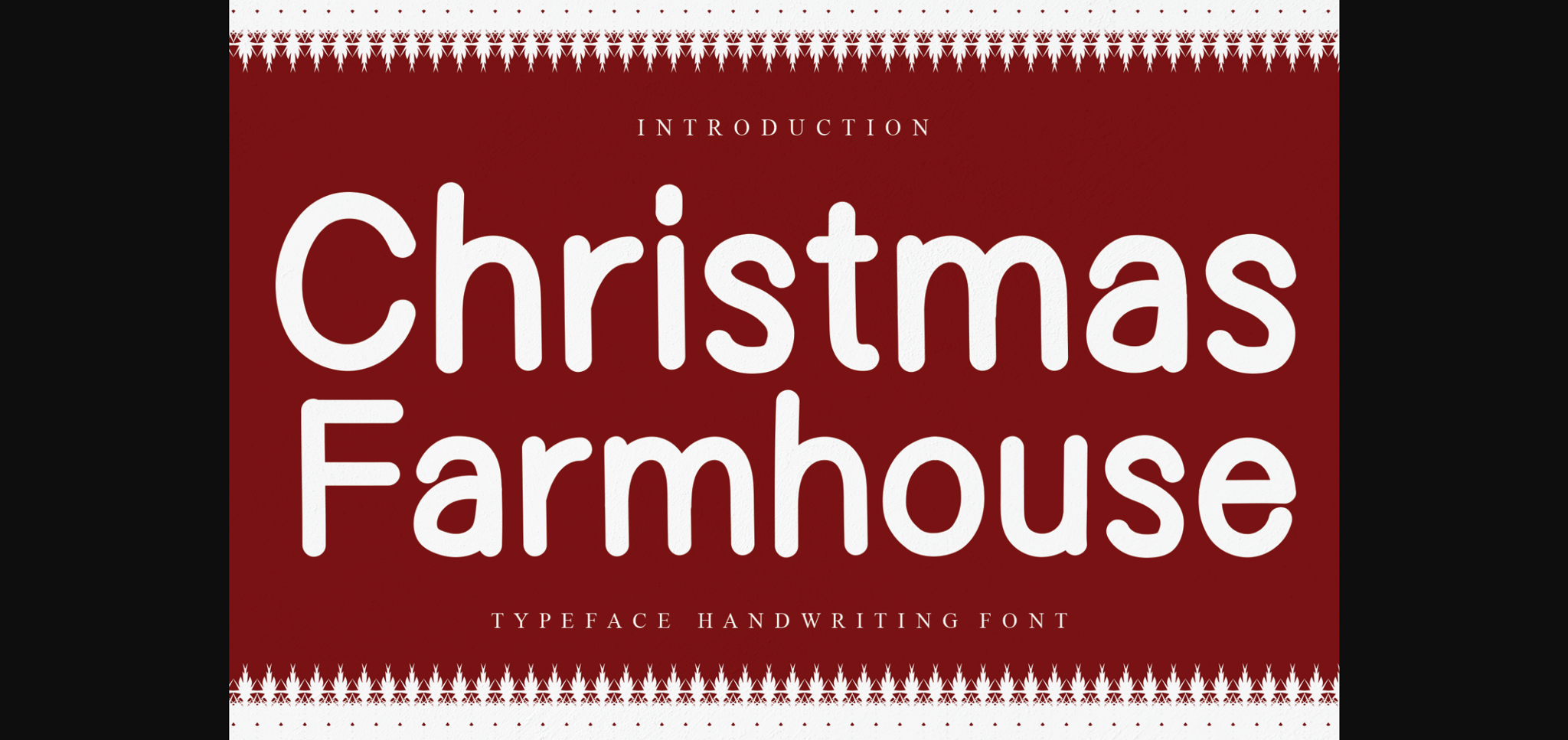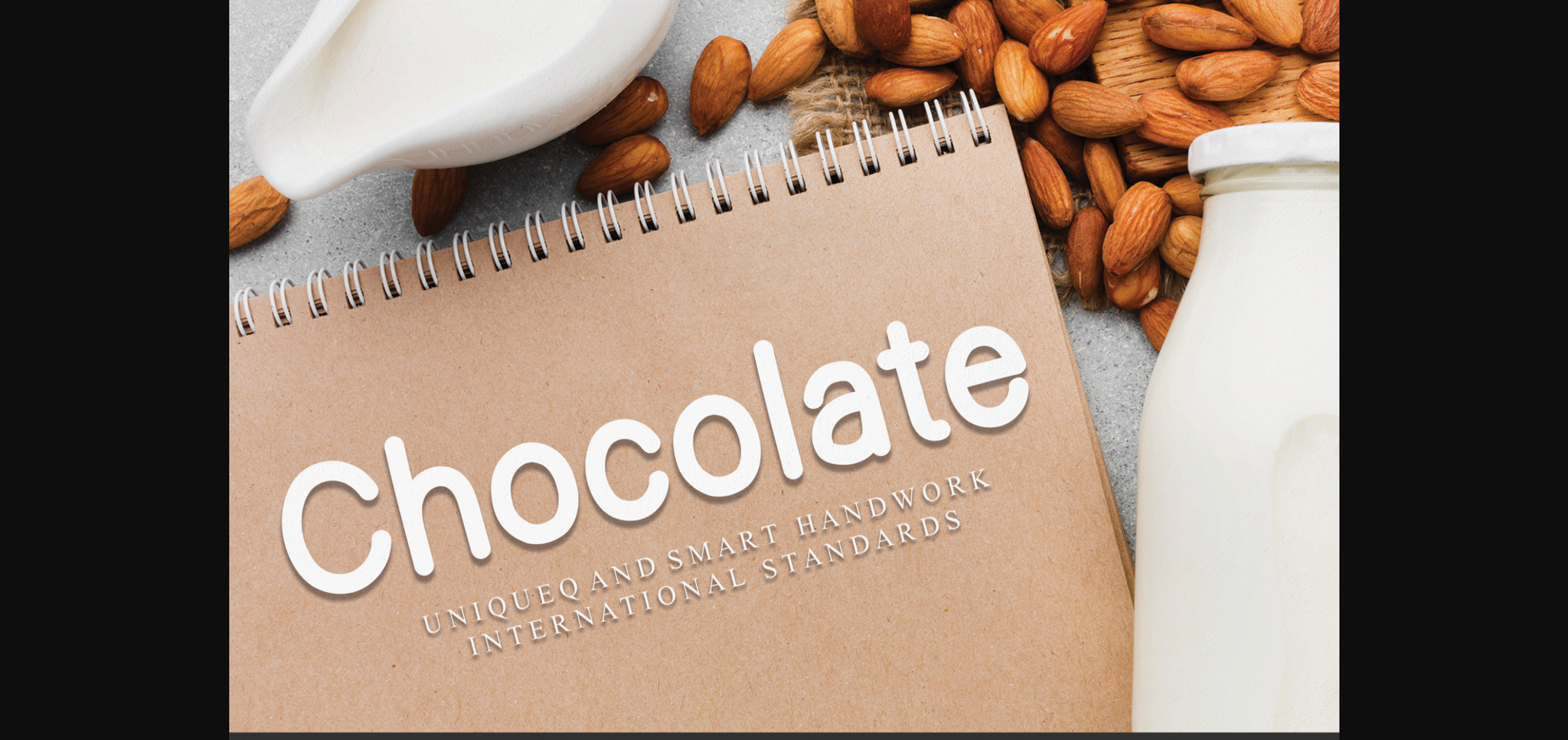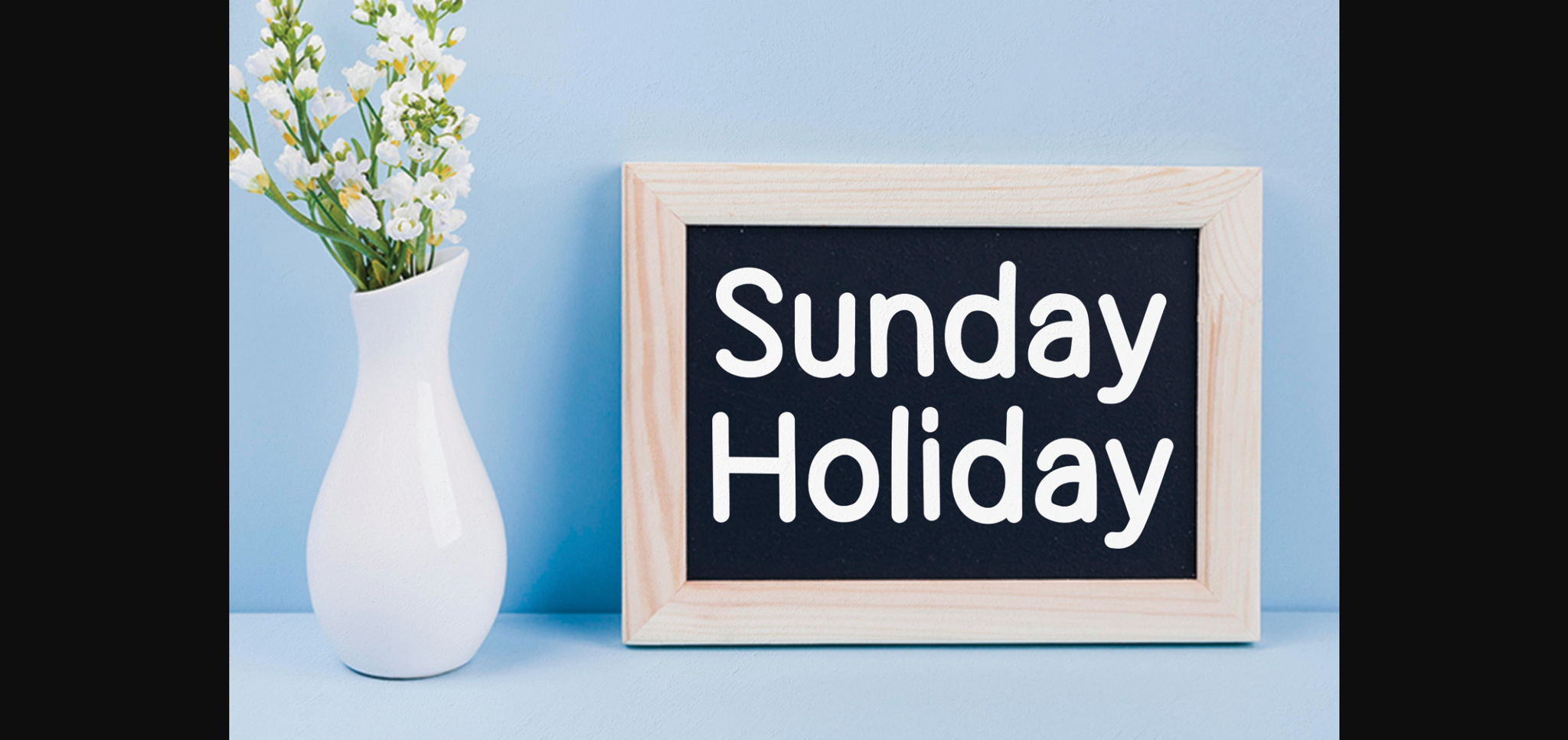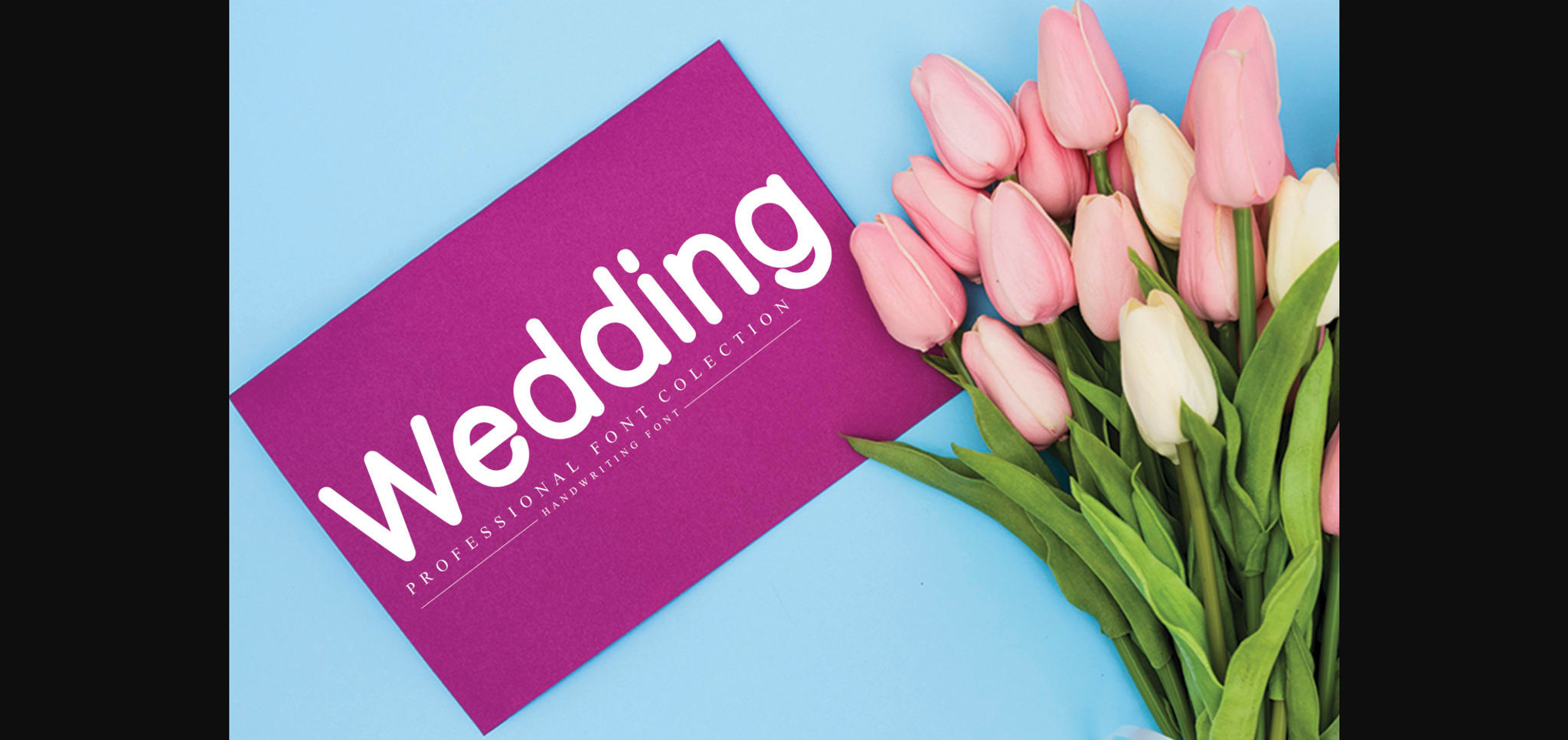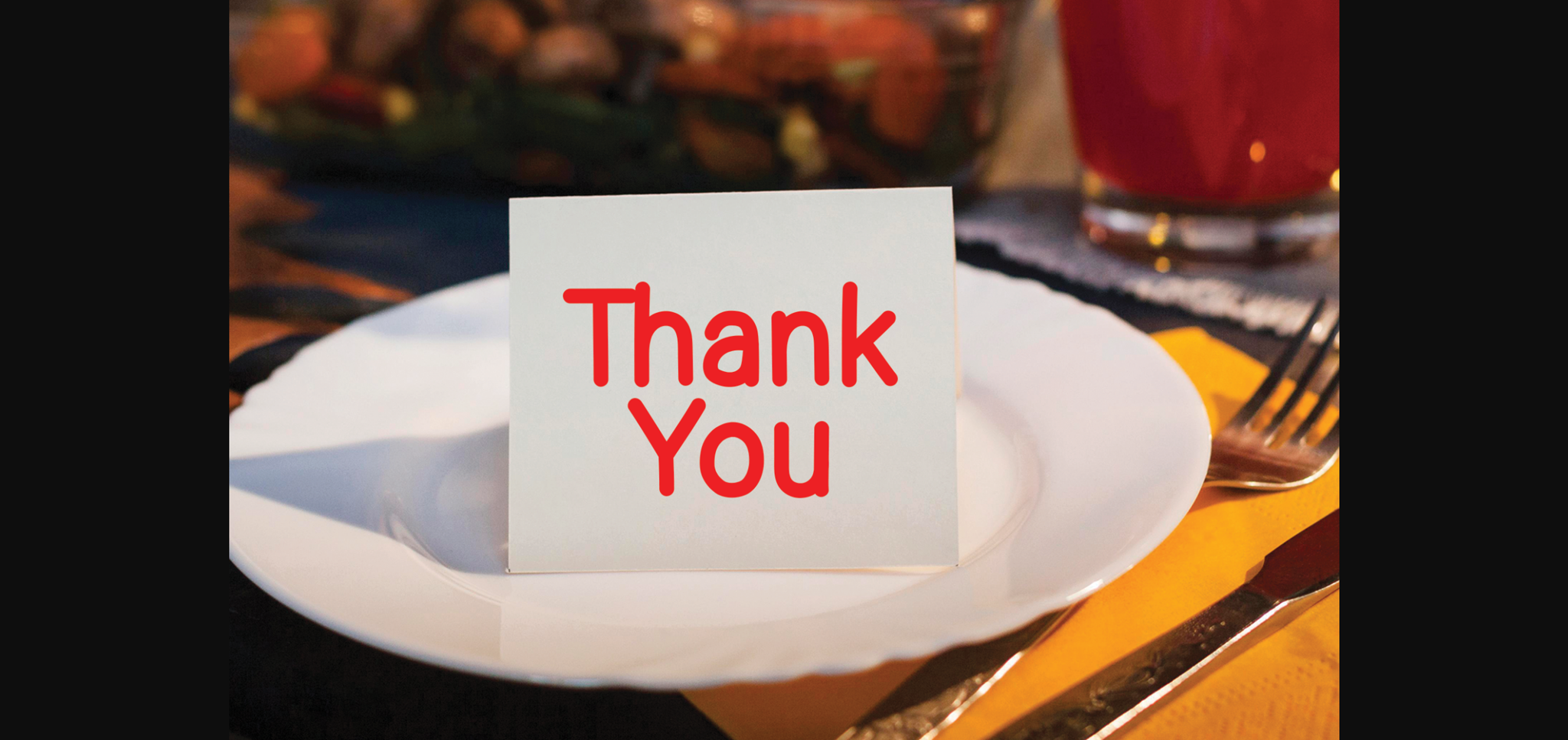
Christmas Farmhouse Font
About Christmas Farmhouse Font
Christmas Farmhouse is a simple and clean sans serif font. Its natural and unique style makes it incredibly fitting to a large pool of designs.